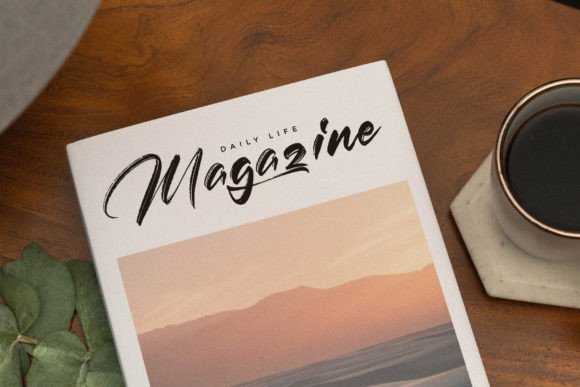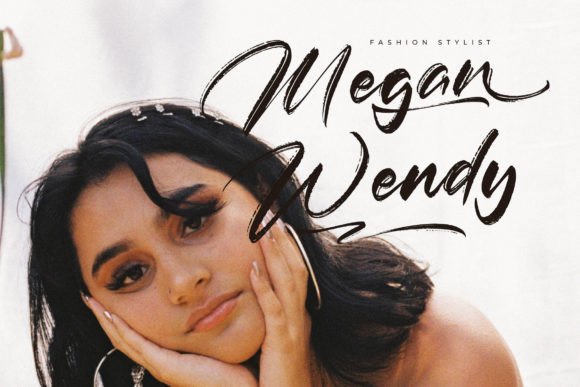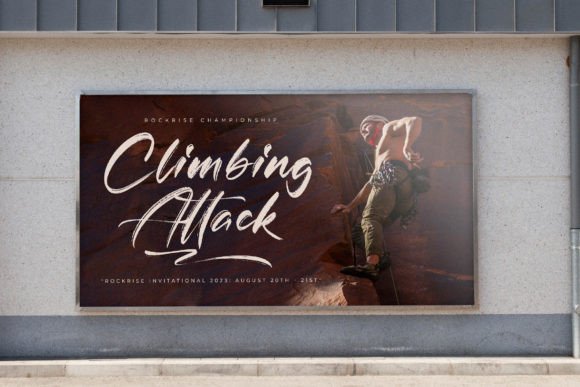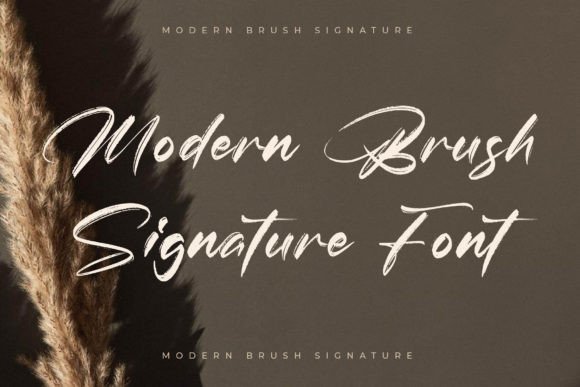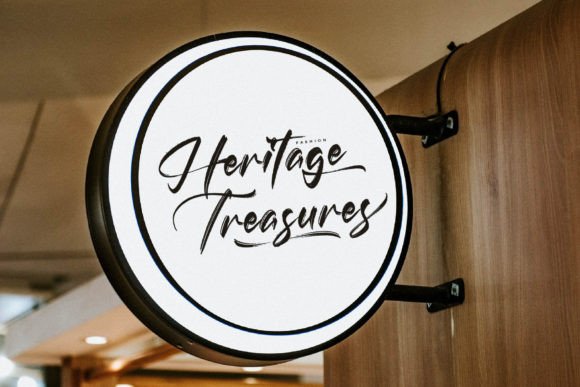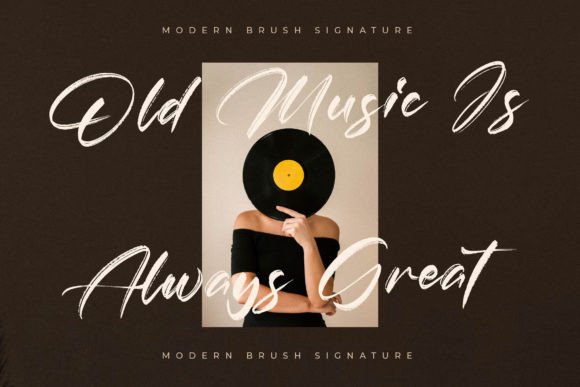
Discover the Elegance of Brightton Puredis Font: A Stylish Handwritten Brush Font
Are you a designer or crafter looking for a font that can elevate your designs to the next level? Look no further than the Brightton Puredis Font. This stylish and elegant handwritten brush font is a masterpiece, with distinct and well-balanced letters that will make your designs stand out. In this article, we’ll dive into the features and benefits of Brightton Puredis, and explore how you can use it to create spectacular designs.
What is Brightton Puredis Font?
Brightton Puredis is a beautifully crafted handwritten brush font that exudes elegance and sophistication. Its unique and flowing letters are designed to add a touch of class to any design project. Whether you’re creating a logo, branding materials, or social media graphics, Brightton Puredis is the perfect choice. Its versatility and flexibility make it suitable for a wide range of design applications, from romantic and feminine to modern and trendy.
Key Features of Brightton Puredis Font
- Stylish and Elegant: Brightton Puredis boasts a stylish and elegant design that will add a touch of sophistication to your designs.
- Handwritten Brush Font: The font’s handwritten brush style gives it a personal and organic feel that’s perfect for designs that require a human touch.
- Distinct and Well-Balanced Letters: Each letter in Brightton Puredis is carefully crafted to ensure that they are distinct and well-balanced, making it easy to read and understand.
- Incredibly Versatile: Brightton Puredis is incredibly versatile and can be used for a wide range of design projects, from logos and branding materials to social media graphics and more.
Benefits of Using Brightton Puredis Font
So, why should you choose Brightton Puredis for your design projects? Here are just a few benefits of using this amazing font:
- Stand Out from the Crowd: With Brightton Puredis, you can create designs that stand out from the crowd and grab attention.
- Add a Touch of Elegance: The font’s elegant design adds a touch of sophistication to any design project, making it perfect for designs that require a level of refinement.
- Easy to Read and Understand: The distinct and well-balanced letters in Brightton Puredis make it easy to read and understand, ensuring that your message gets across clearly.
- Perfect for Designers and Crafters: Brightton Puredis is perfect for designers and crafters who want to create stunning designs that showcase their creativity and skill.
How to Use Brightton Puredis Font
- Experiment with Different Sizes and Colors: Brightton Puredis looks great in a variety of sizes and colors, so don’t be afraid to experiment and find the perfect combination for your design.
- Pair it with Other Fonts: Brightton Puredis pairs well with other fonts, so try combining it with a bold font for headings or a clean font for body text.
- Use it for a Variety of Design Projects: Brightton Puredis is versatile and can be used for a wide range of design projects, from logos and branding materials to social media graphics and more.